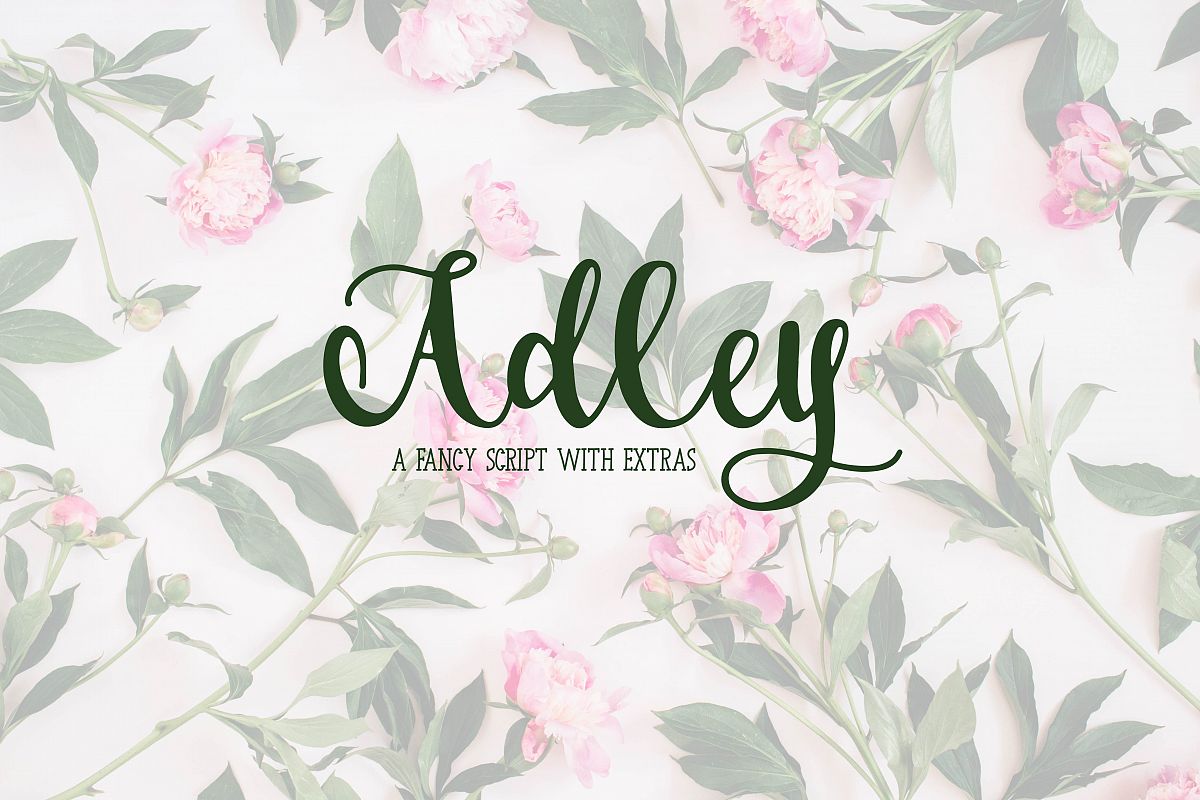
Adley - A Fancy Script
Adley-Regular
Adley is a fancy script font PERFECT for invitations, weddings, signs, & more!
Super swirly and including catchwords for that extra bit of custom feeling!
Adley - A Fancy Script